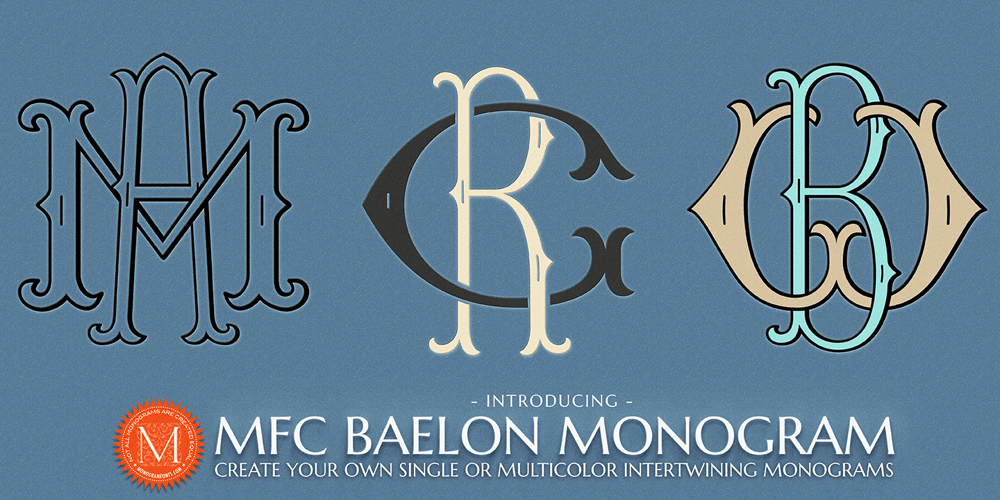
MFC Baelon Monogram Font Family was designed by Jim Lyles, Brian J. Bonislawsky and published by Monogram Fonts Co.. MFC Baelon Monogram contains 32 styles and family package options. The inspiration source for Baelon Monogram is an alphabet set from the book, Monograms and Alphabets for Combination by Dollfus Mieg & Cie, first published in the 1890s. What began as 26 referenced outline/shadowed letters became an over 800 character font in order to create its unique interwoven monogram effect! Baelon Monogram can create one, two, or three letter monograms as well as a unique two letter intertwined monogram style – made by simply typing a lowercase immediately followed by a Capital (using OpenType Ligatures). Classic decorative letterforms combine to make elegant monograms, and you can also choose to type in all capitals or all lowercase for simple title and headlines as well. (Note that due to the manner in which combination monograms are formed, some letters like the I will change to script-like forms to avoid being hidden in overlaps). Download and view the Baelon Monogram Guidebook if you would like to learn a little more.